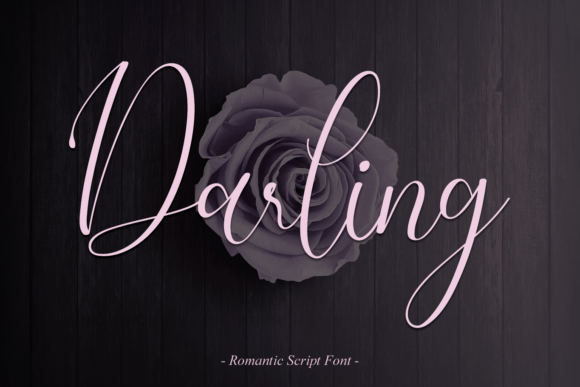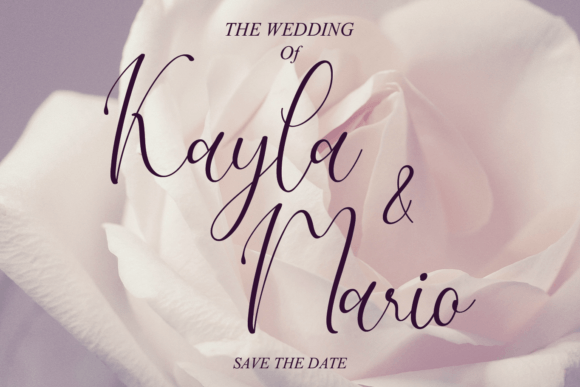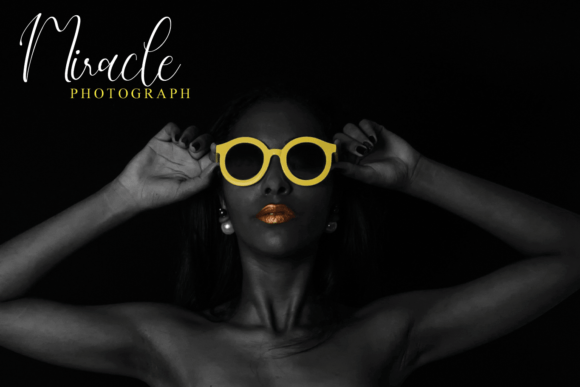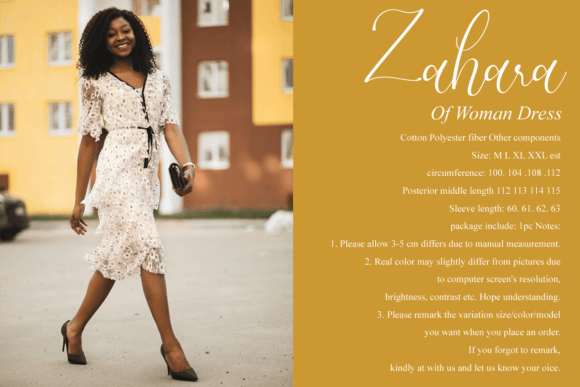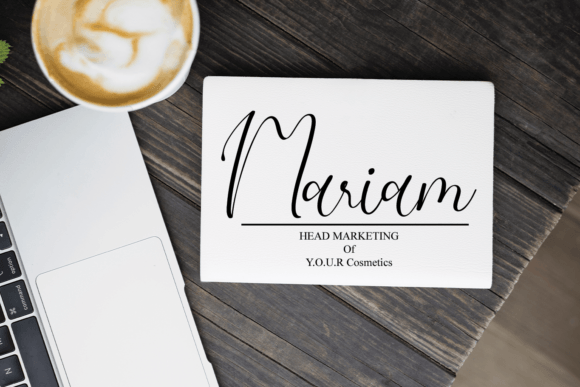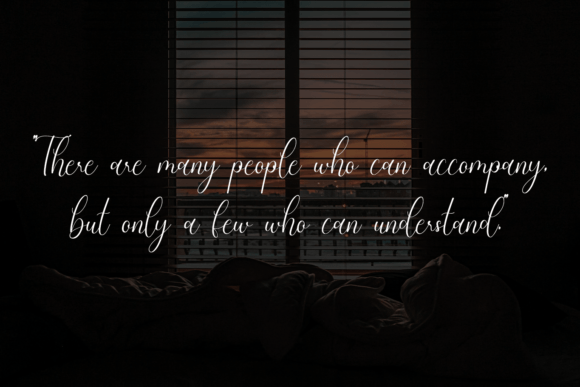
About Darling Font
“Darling” is a romantic and sweet calligraphy script font that captures the essence of dancing characters along the baseline. This font is crafted to add a luxurious spark to any creative design or project you wish to develop. Its romantic and calligraphic style brings a touch of elegance, making it a perfect choice for a variety of applications.
The romantic quality of “Darling” shines through in its calligraphy script, creating a sense of fluidity and grace. The characters dance along the baseline, contributing to a visually enchanting and sophisticated appearance. This makes the font an ideal selection for projects that seek to convey a romantic or luxurious vibe.
In creative designs, “Darling” becomes a standout element, adding a touch of charm and personality. Whether applied to wedding invitations, love notes, branding, or any project with a romantic theme, the font enhances the overall visual appeal. Its calligraphic strokes bring a sense of handcrafted elegance, making your designs more captivating.
The luxurious spark that “Darling” introduces is particularly pronounced in projects that require a refined and upscale aesthetic. From high-end invitations to premium branding materials, this font elevates the sophistication level, creating a memorable and visually pleasing experience.
The versatility of “Darling” ensures that it adapts well to various design elements without losing its romantic charm. Whether used in logos, product packaging, or signage, the font adds a layer of elegance that sets your design apart.
In essence, “Darling” is more than just a font; it’s a design tool that infuses romance and luxury into your creative projects. Embrace its calligraphy script, and witness how it transforms your designs into visually enchanting and sophisticated creations. Let “Darling” be the romantic and sweet element that elevates your projects and adds that luxurious spark you’re looking for.